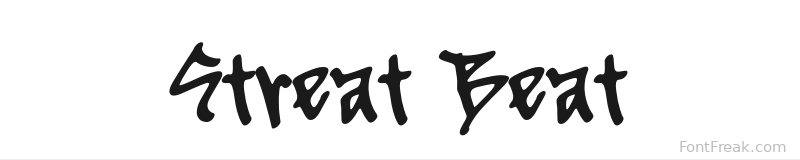
Streat Beat
Streat Beat, created by MJType, is a captivating display font that captures the essence of urban art and culture. This font falls into the decorative category, characterized by its bold, handwritten style that exudes a lively and energetic feel. The strokes are dynamic, showcasing a varied weight that adds depth and movement to each letter. The playful spacing and organic forms of the characters emphasize a casual yet artistic vibe, making it perfect for a range of creative applications.
Ideal for projects that seek to convey a vibrant and youthful spirit, Streat Beat shines in use cases such as music festival posters, streetwear branding, and café menus that aim to attract a trendy crowd. Its unique characteristics make it suitable for social media graphics and event promotions, where capturing attention is paramount. Small business owners looking to establish an engaging brand identity will find this font particularly appealing, as it resonates with a target audience that values creativity and flair.